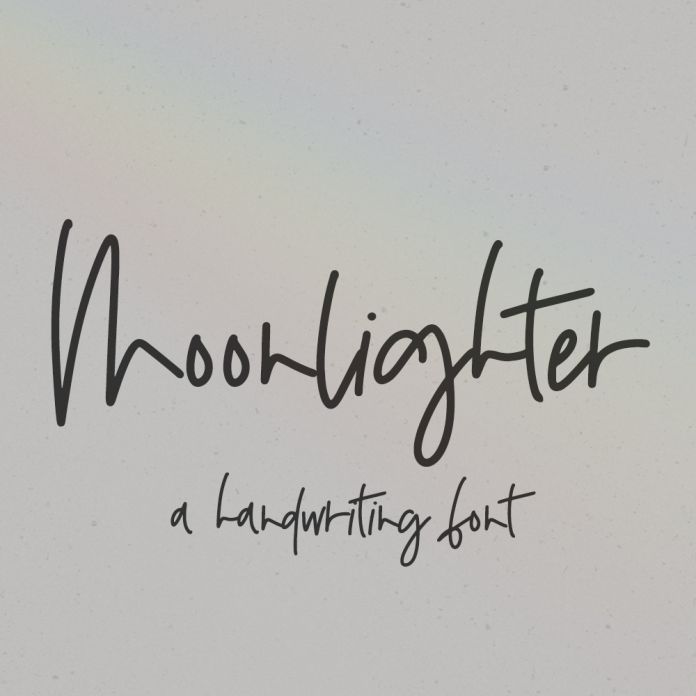
Moonlighter Script Font
Introducing Moonlighter, a messy, monoline handwriting font. Moonlighter is best for: - logos + branding - website design + website accents, blog design - clean print design, like magazines + flyers - header elements that need handwritten touch - quote graphics for social media Moonlighter includes: - full upper + lowercase characters - numbers + punctuation - Western European Language Support - 26 alternate lowercase characters - 10 ligatures - bb, dd, ff, ll, mm, nn, oo, rr, ss, tt - PUA-encoding